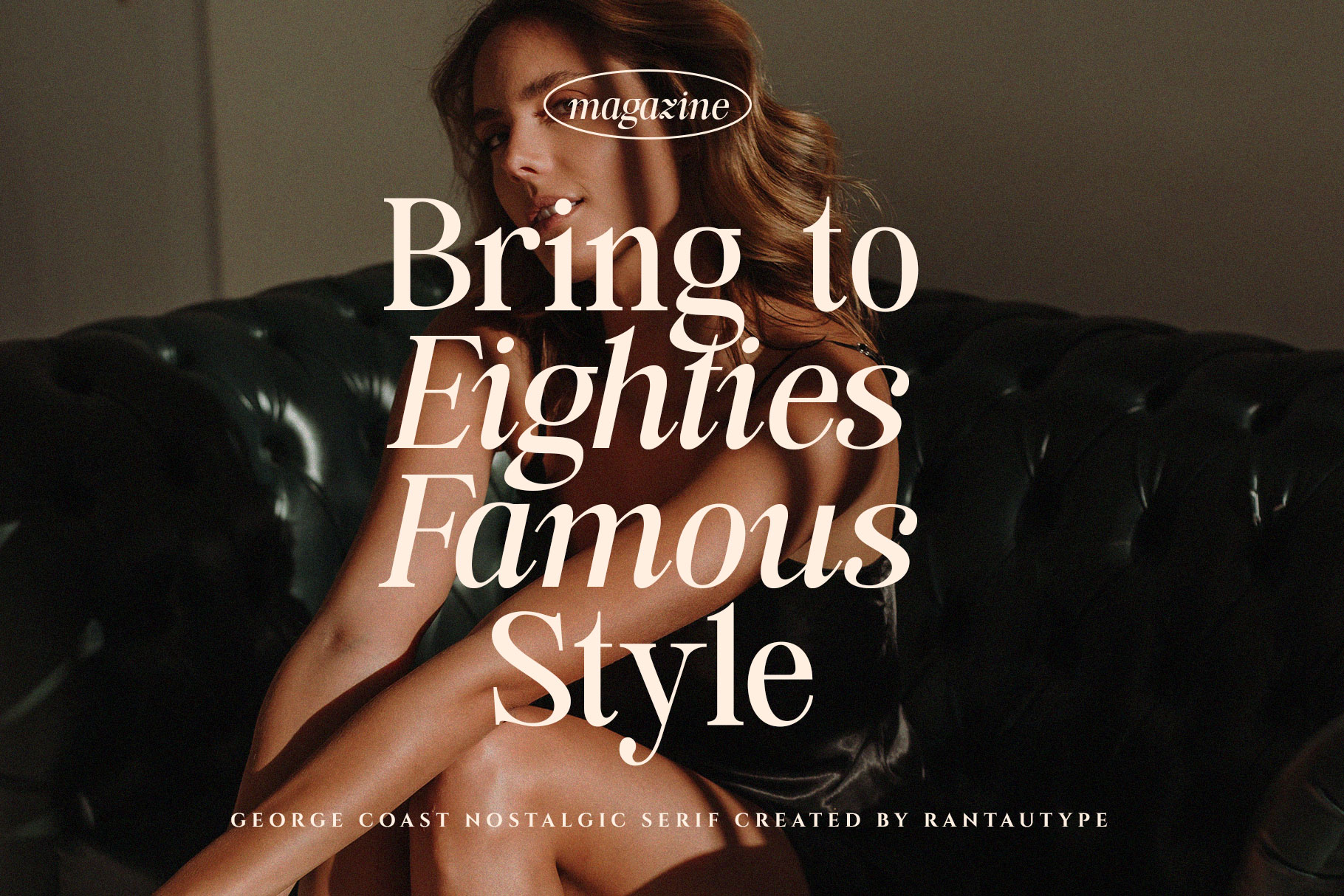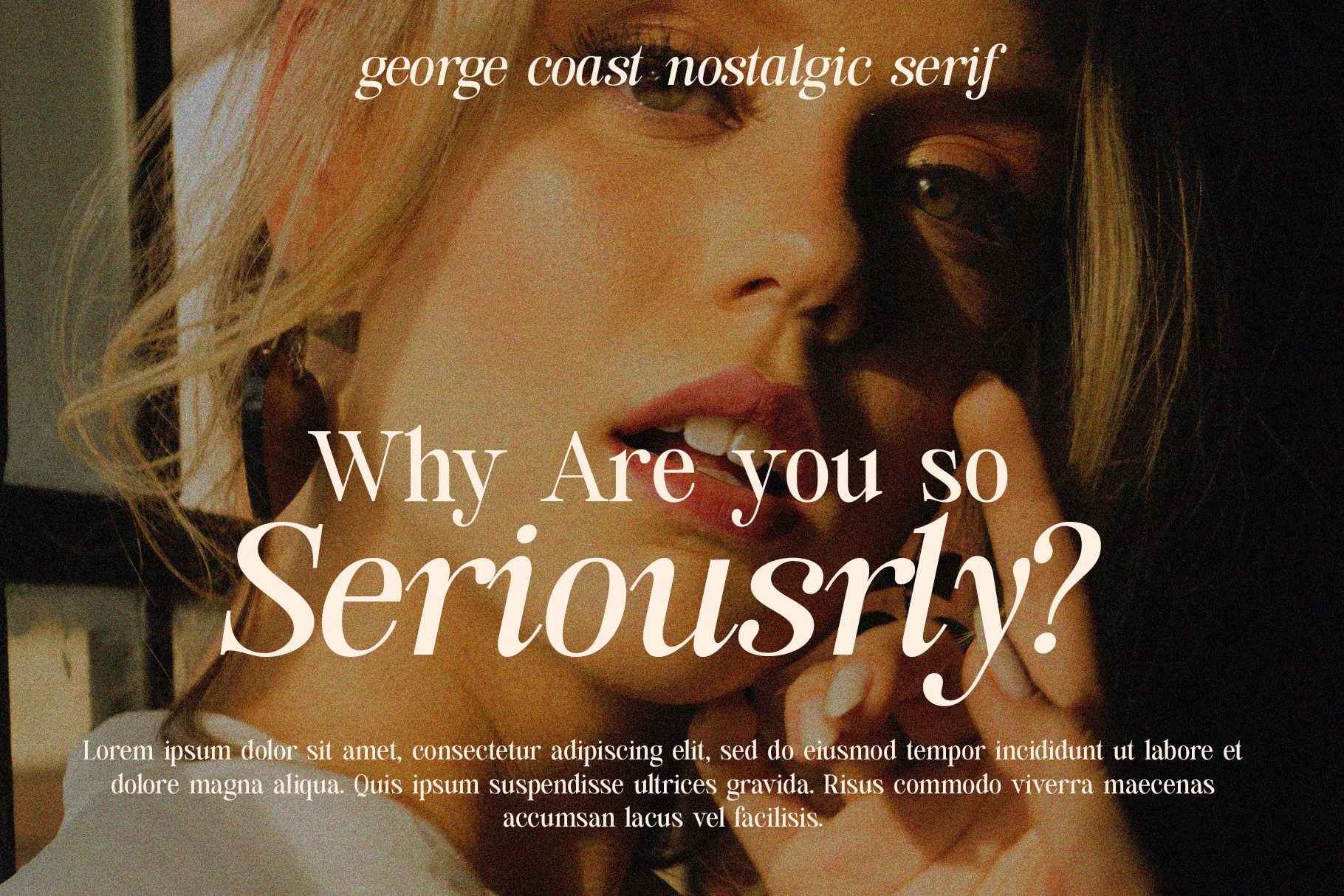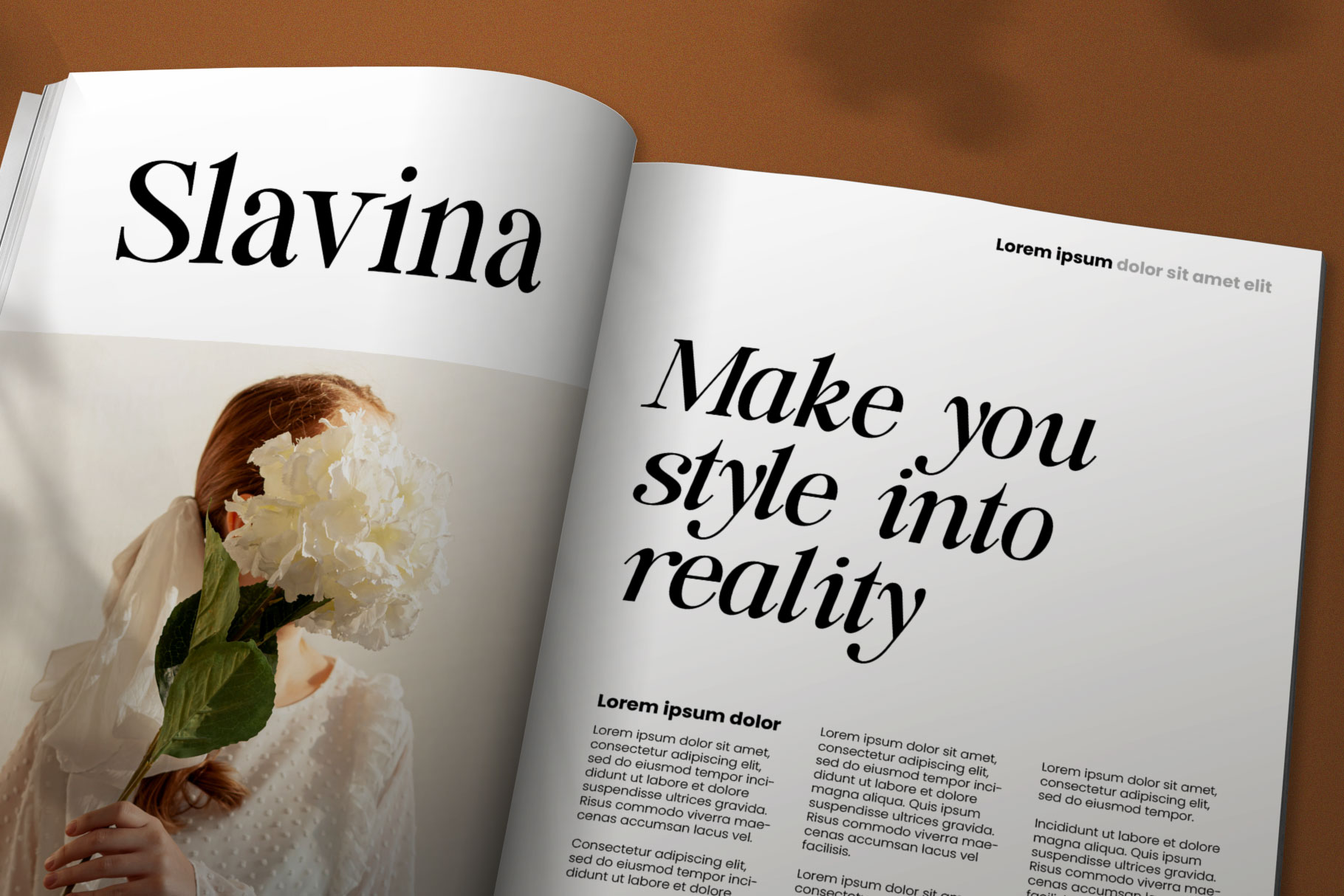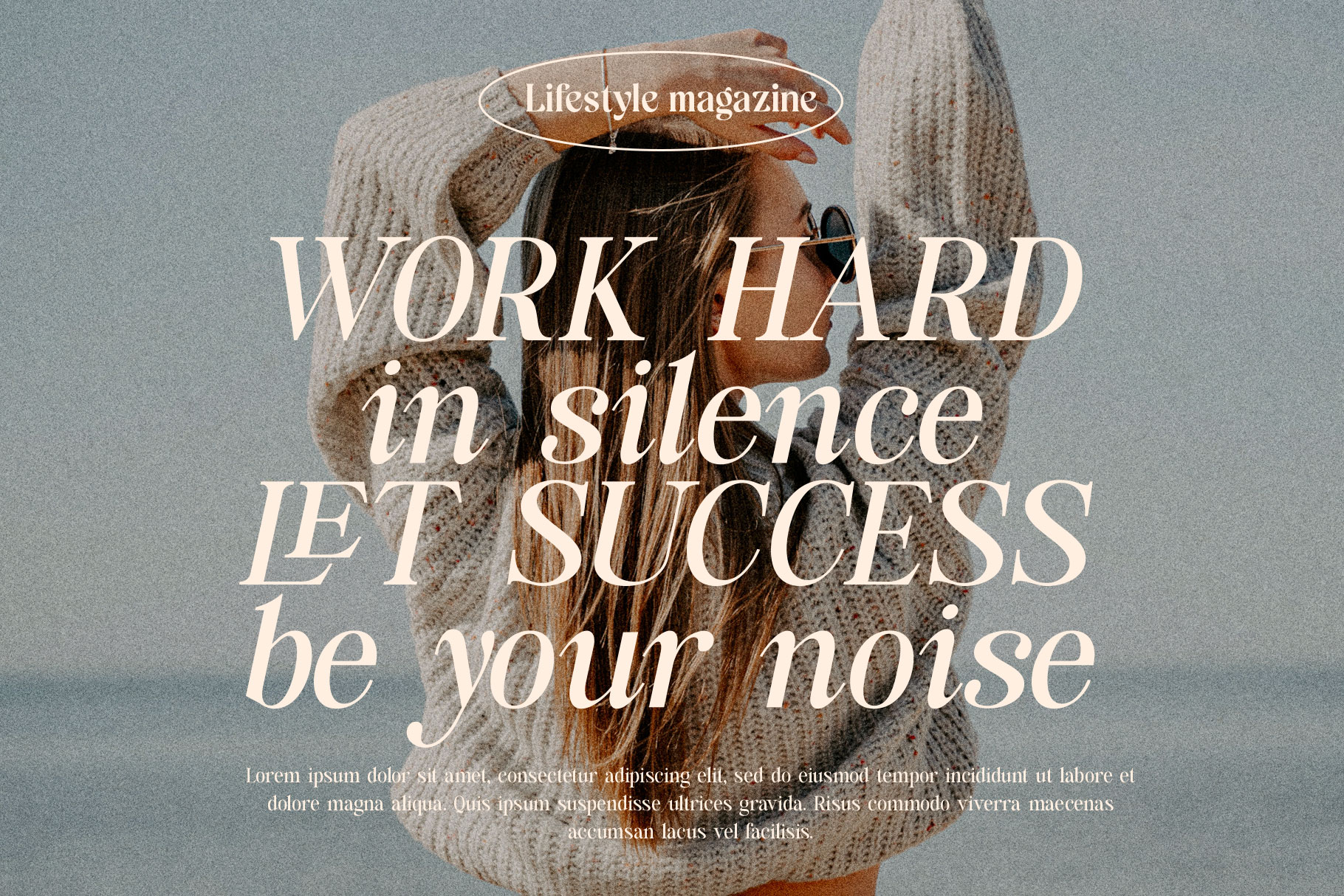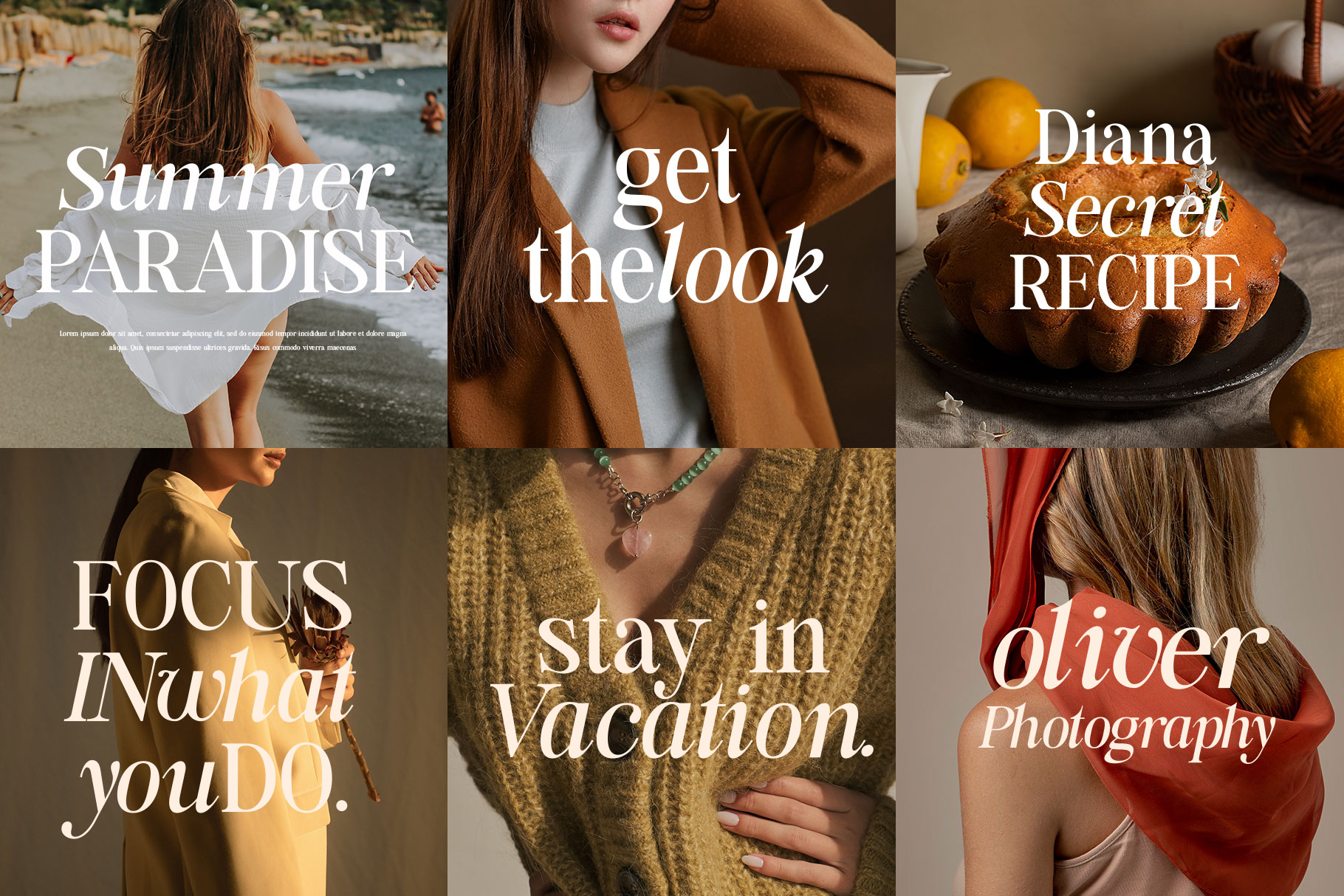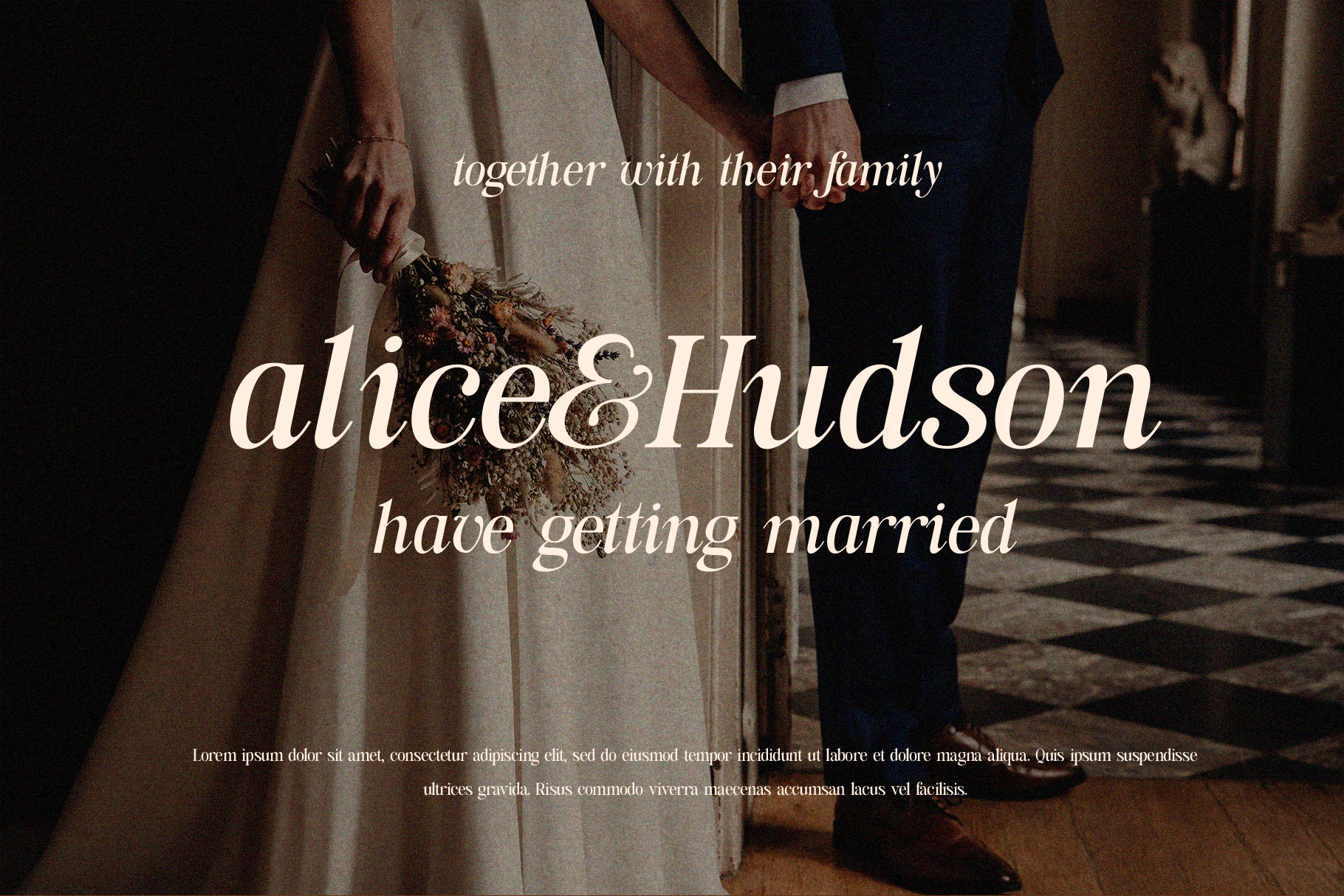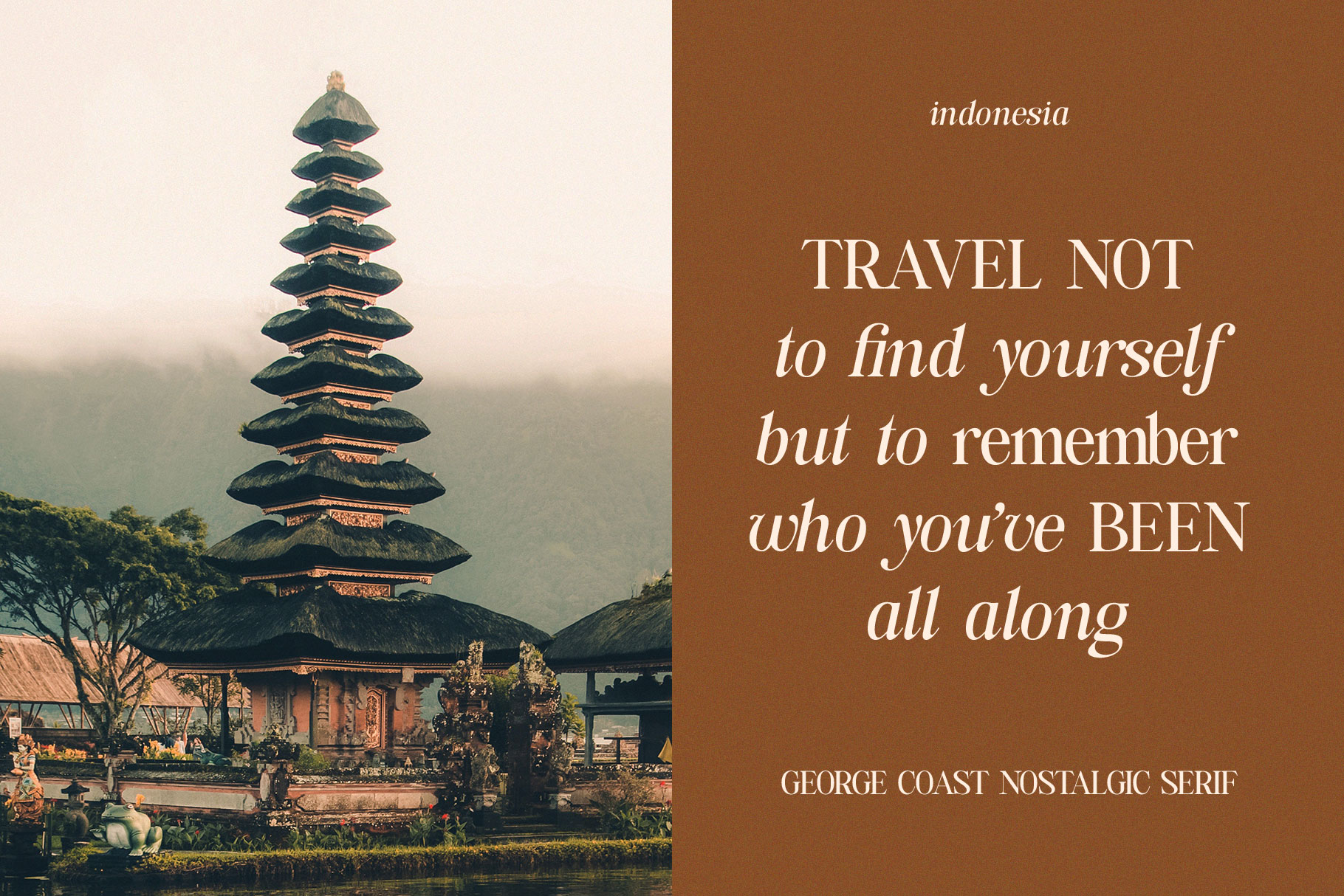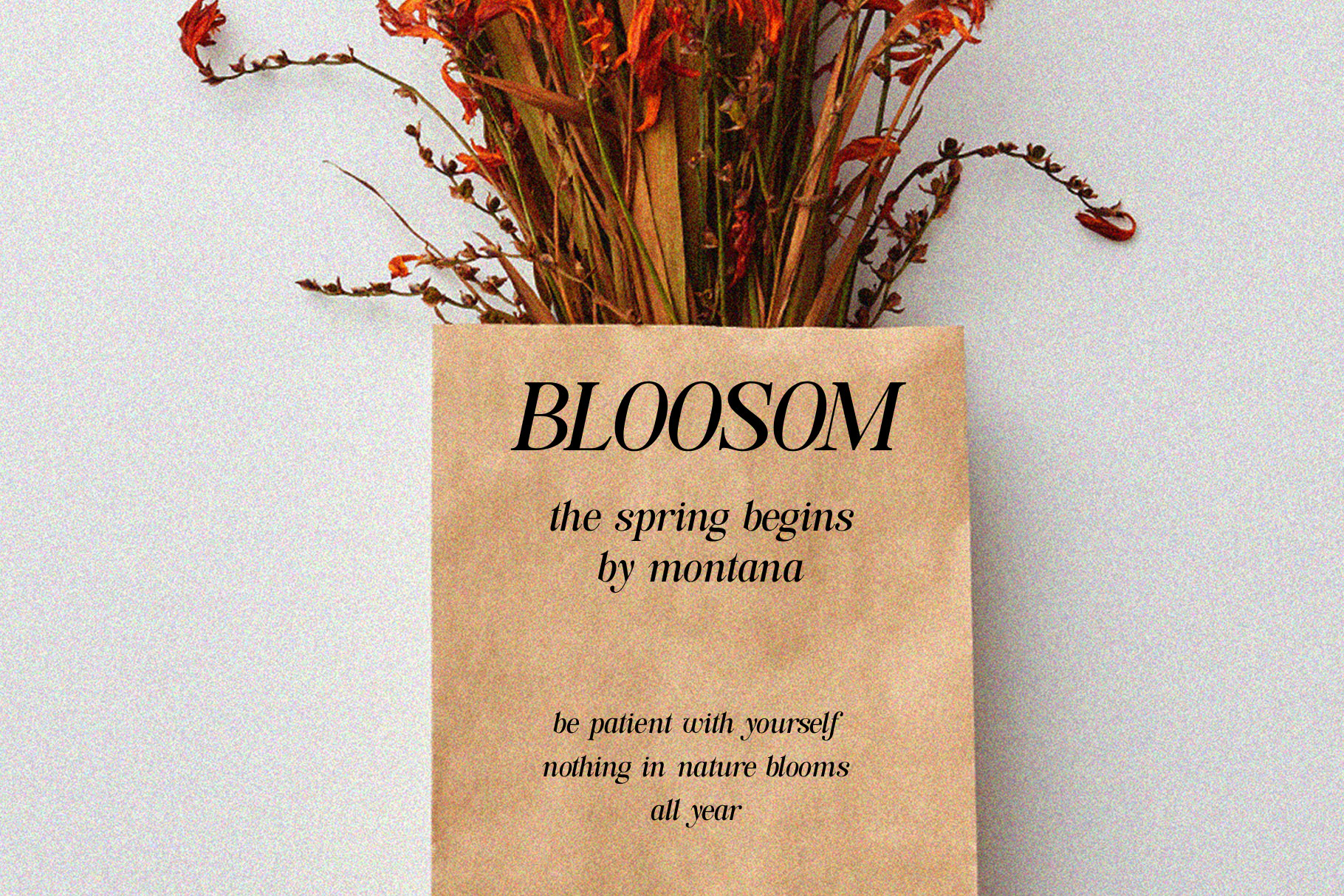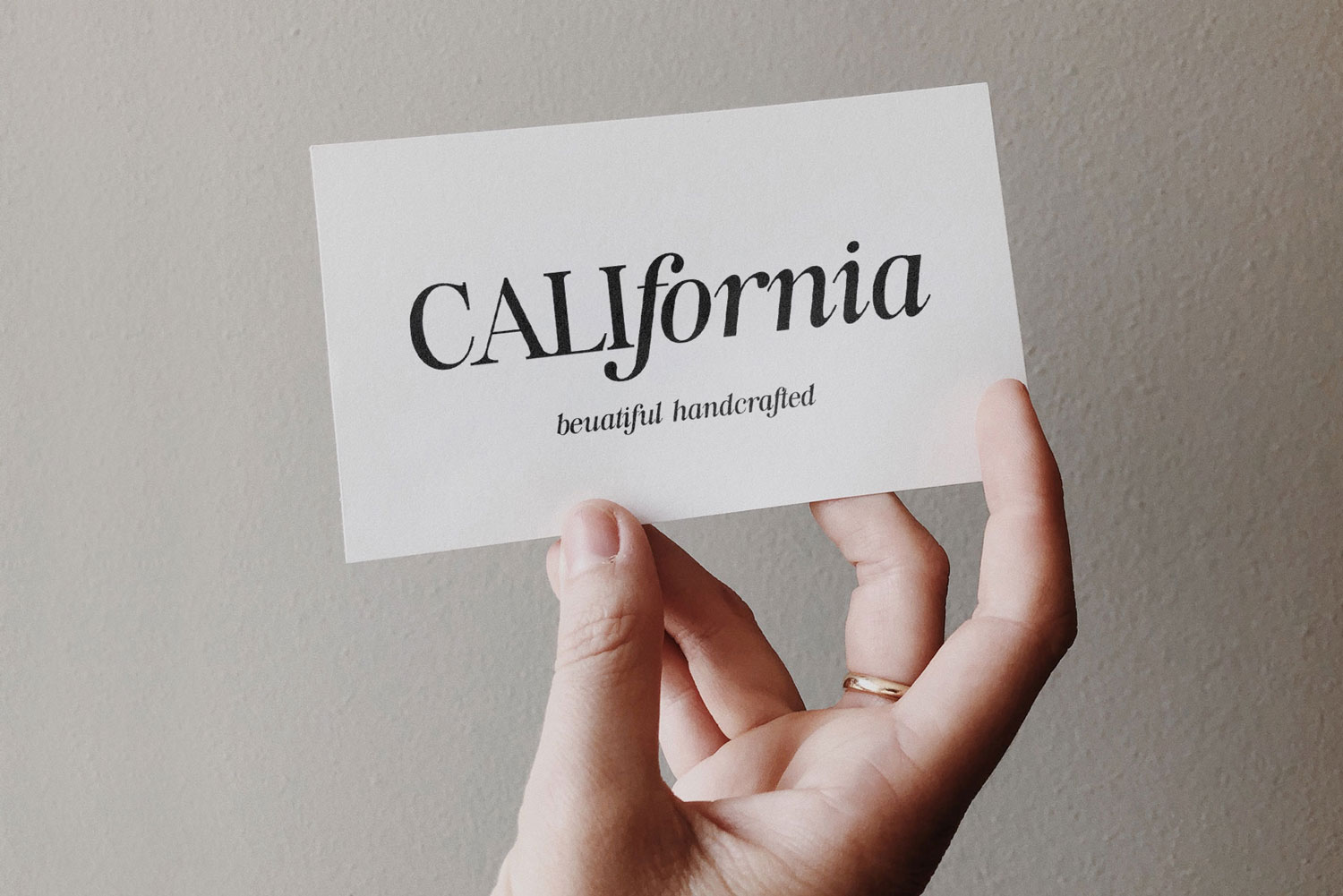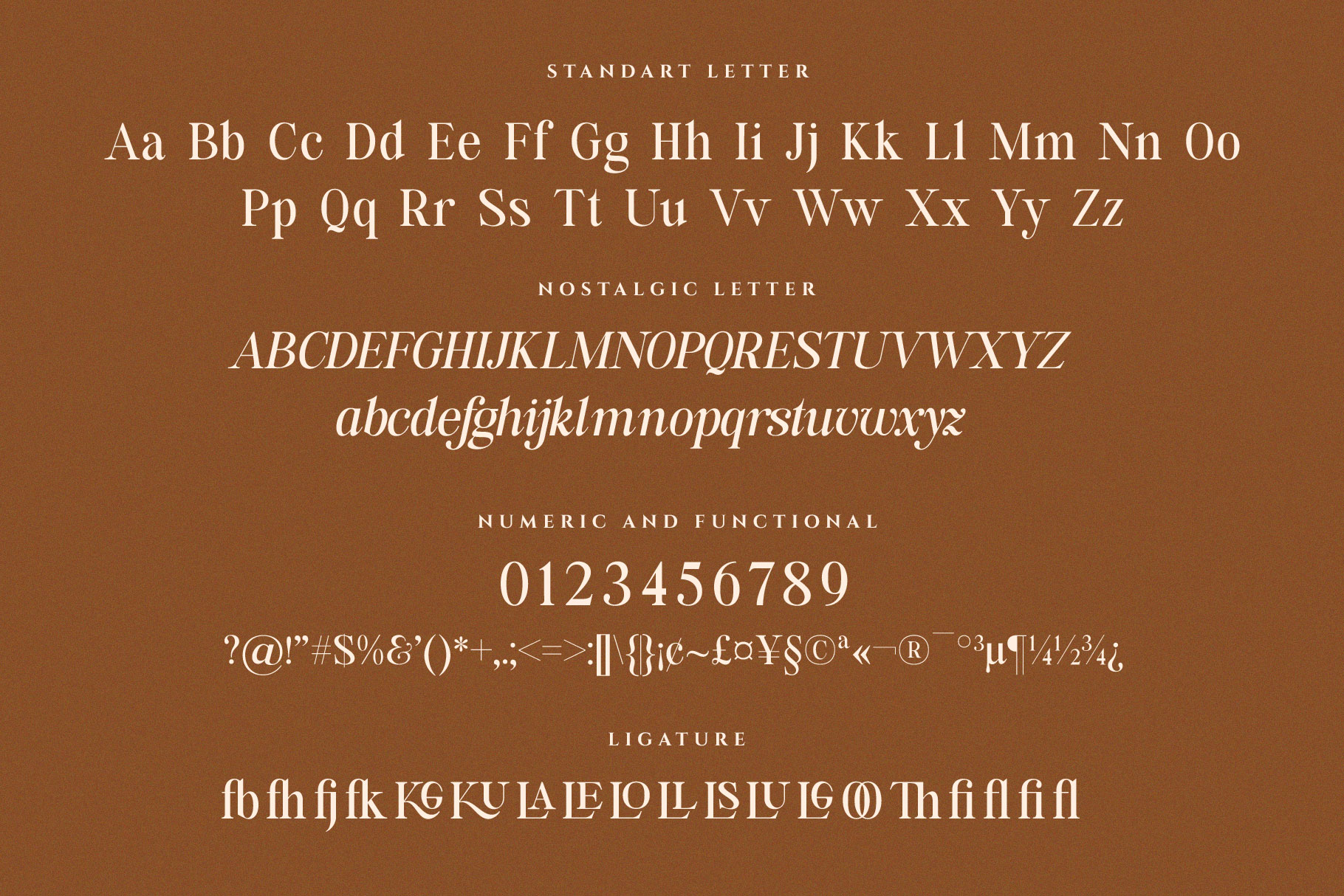
George Coast Nostalgic Font
George coast – is a classy eighties magazine inspired serif with complementary italic version. Both come in two versions one with more contrast and crisper than the other. In true Eighties style, they also come in varying degrees of Condensed form – mix and match them to create eye-catching effects. I’ve also love combination the reguler and italic make cool and nostalgic. George coast included multilingual characters
George coast – perfectly suitable lifestyle design such as logos, title, and magazine, quotes, branding and more. Now you can choice george to make a beuatiful design.